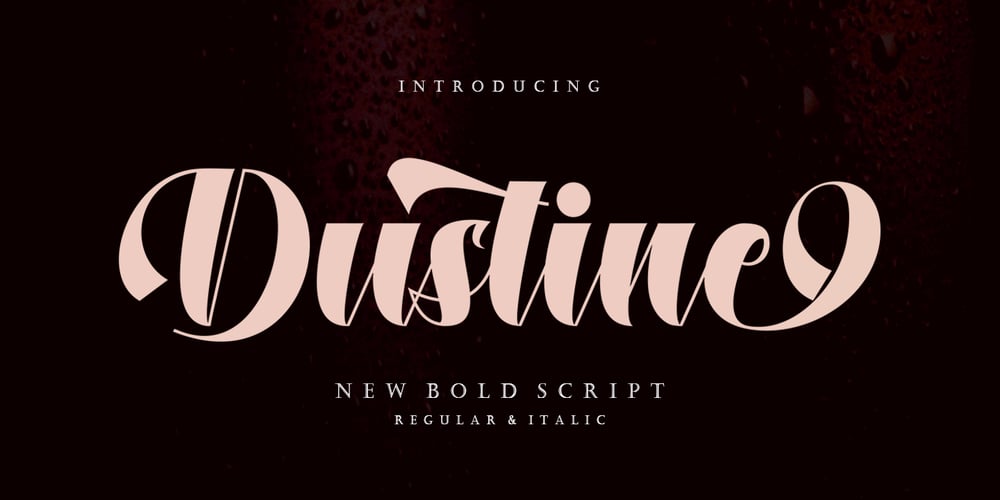
Dustine Script Font Family was designed by Rizki Andika and published by Letterfreshstudio. Dustine Script contains 2 styles and family package options. Dustine script is an extraordinary and bold script, suitable for a large number of designs. This font has two styles, Regular and Italic. With two styles, you can choose according to the project that you are working on.